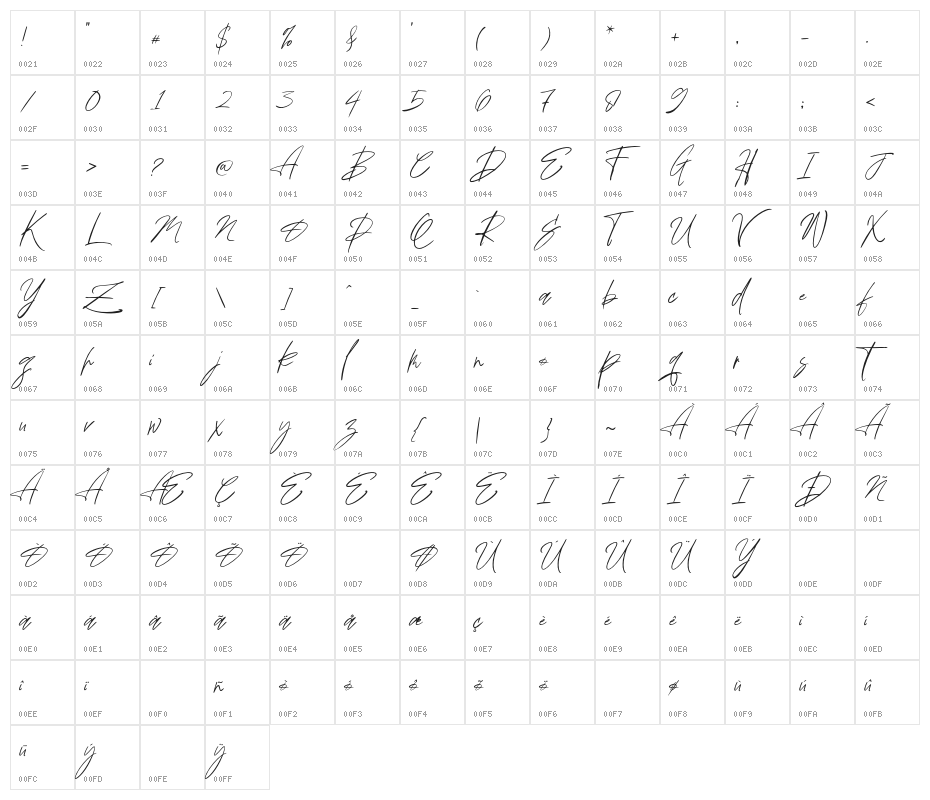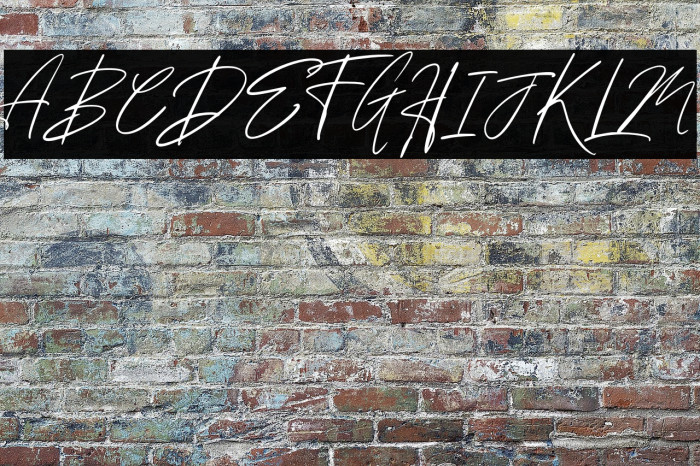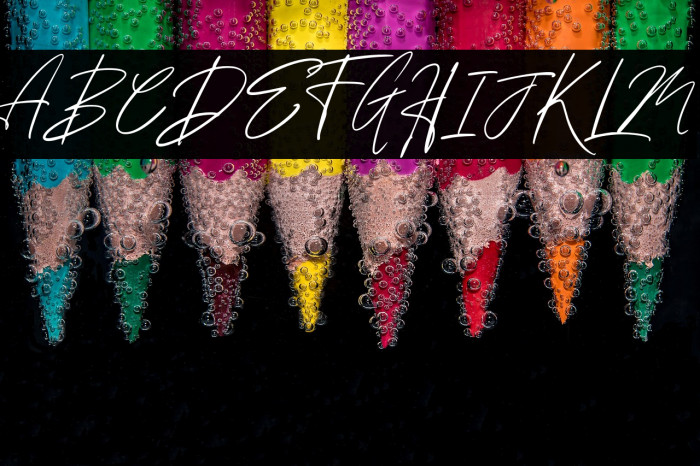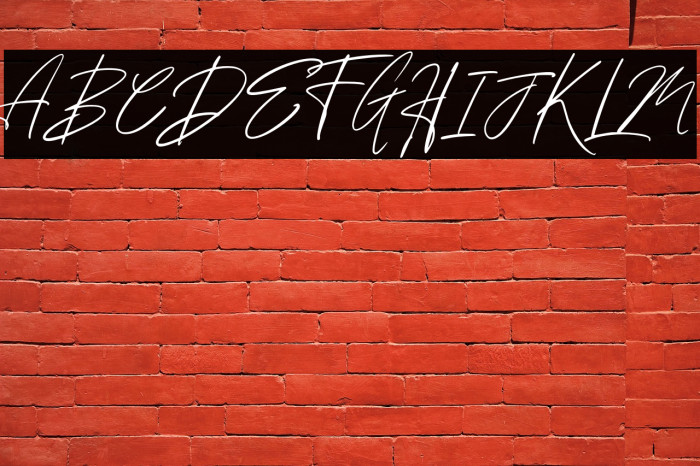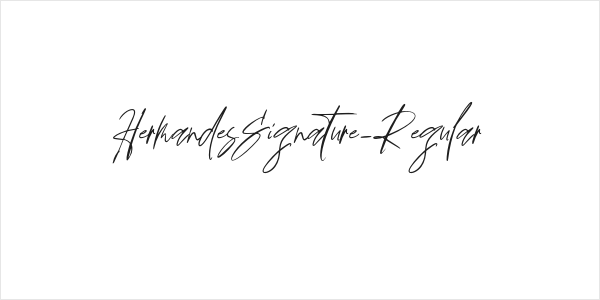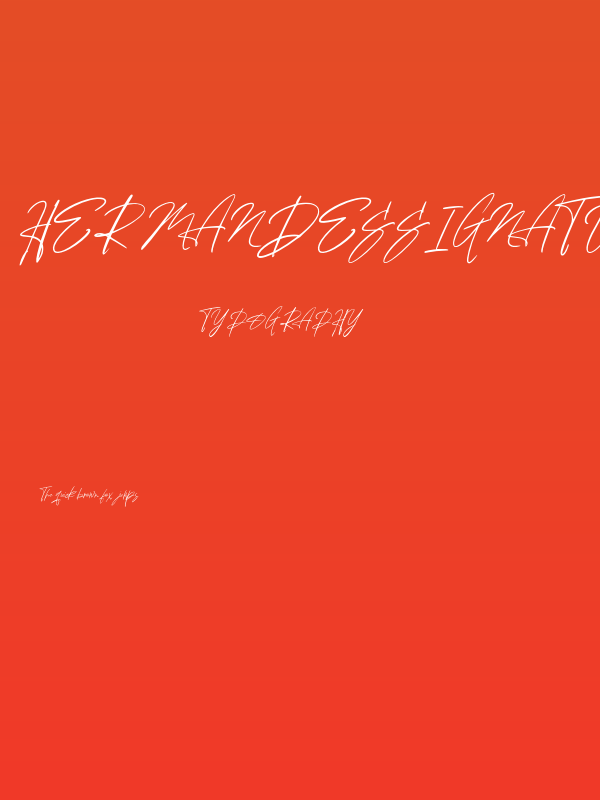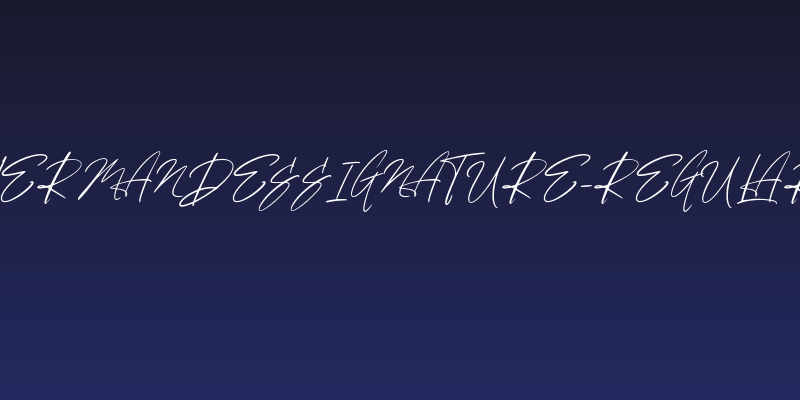
HermandesSignature-Regular Font
HermandesSignature-Regular Description
A flowing, cursive script font with a handwritten style, featuring elongated strokes and a natural, personal touch.
| Use Case | Logos, Invitations, Personal notes |
| Proposed Projects | Invitations, personal branding, signatures. |